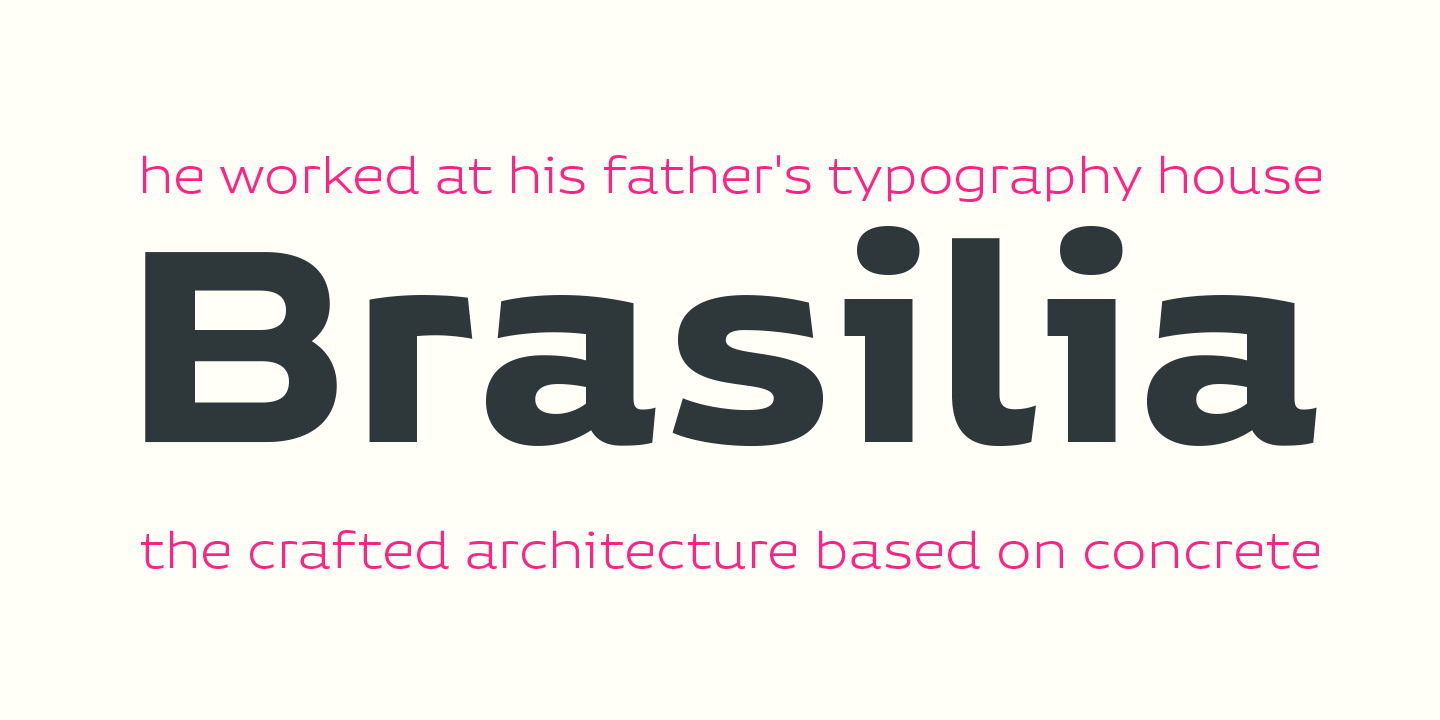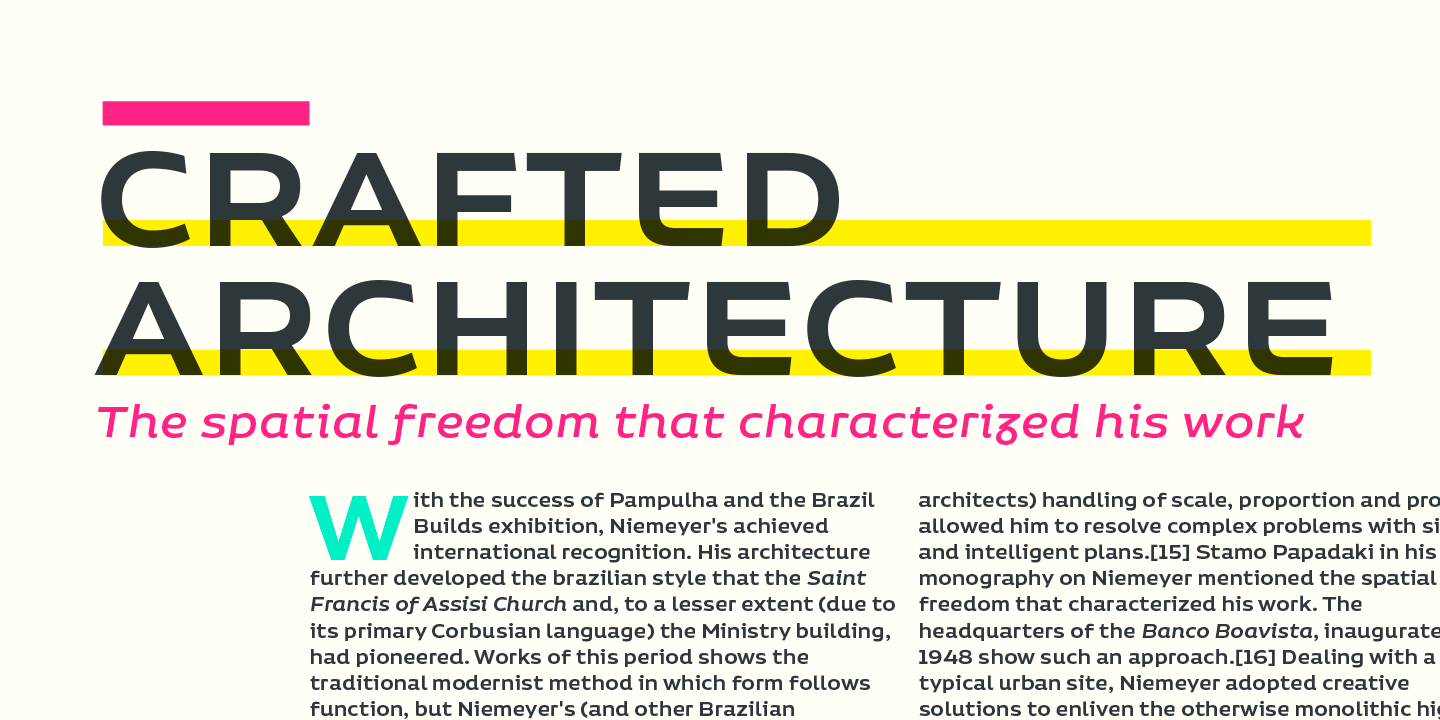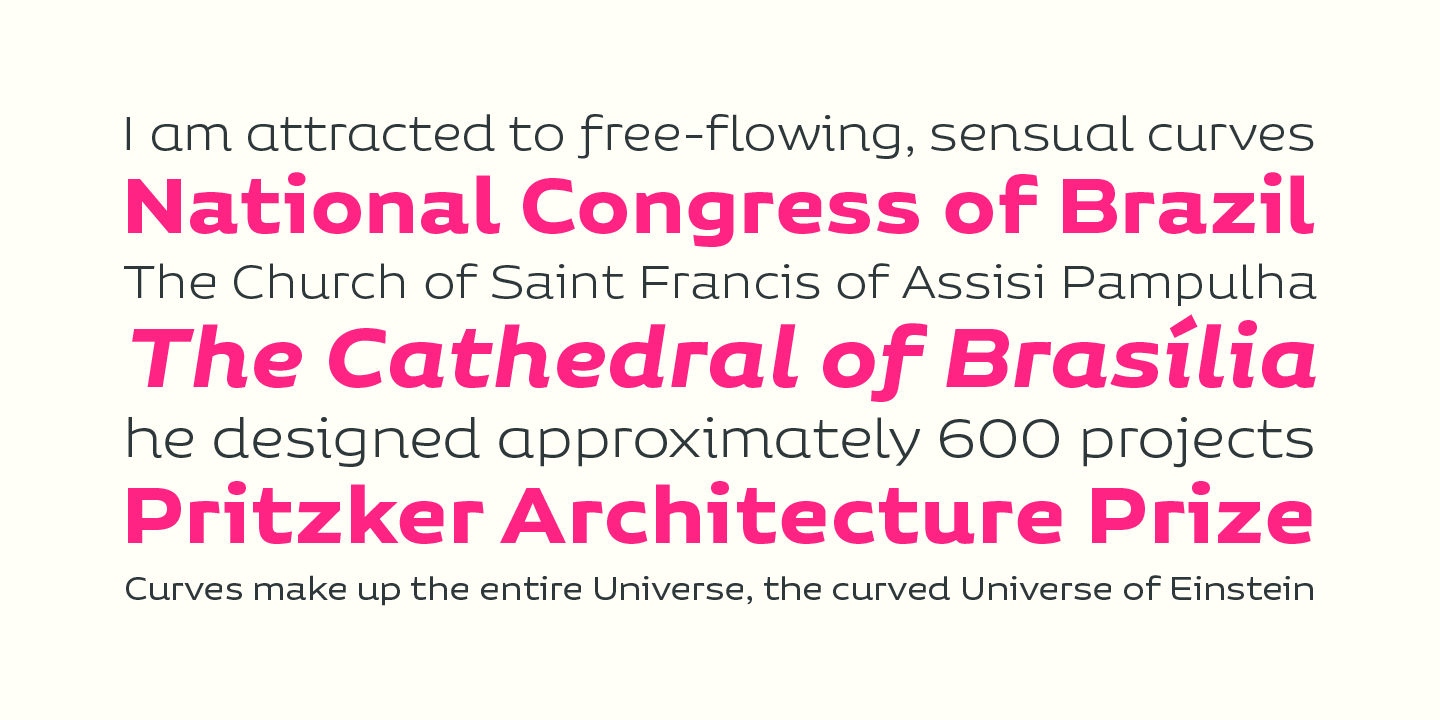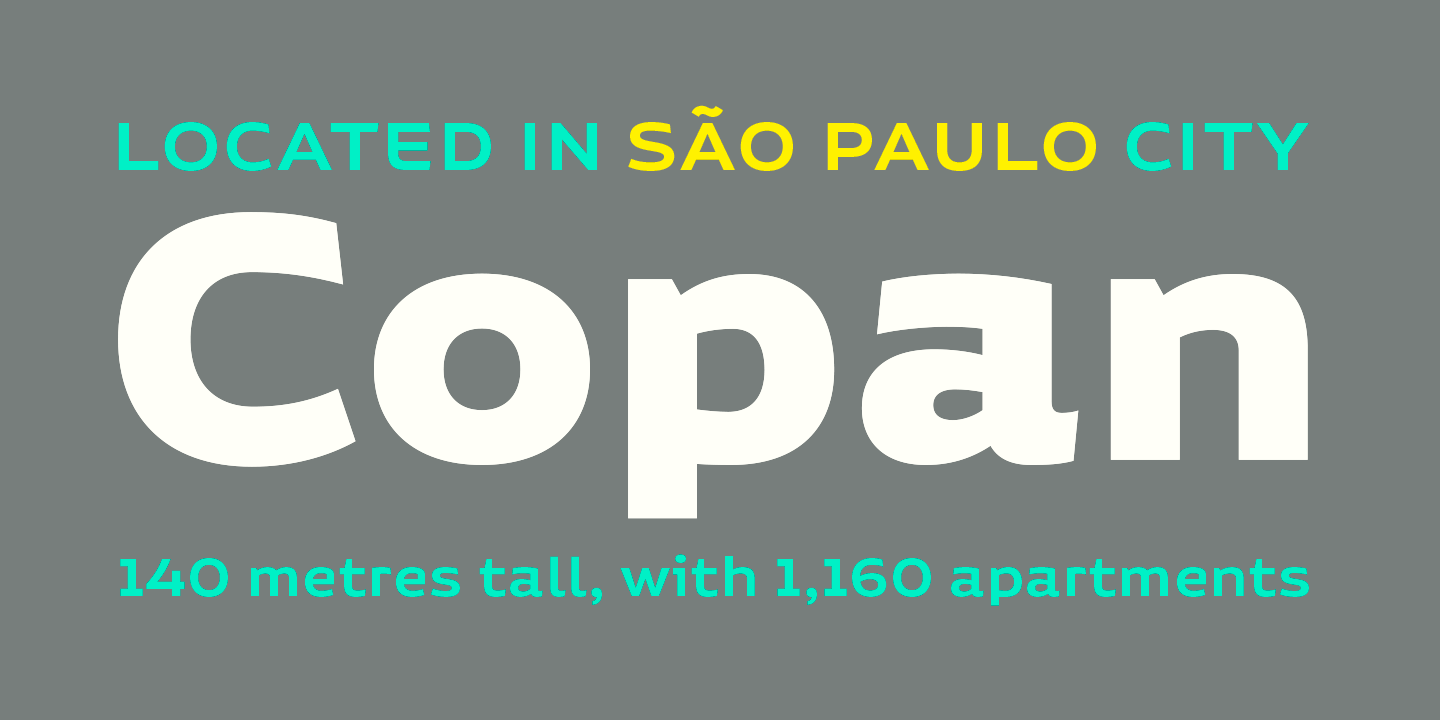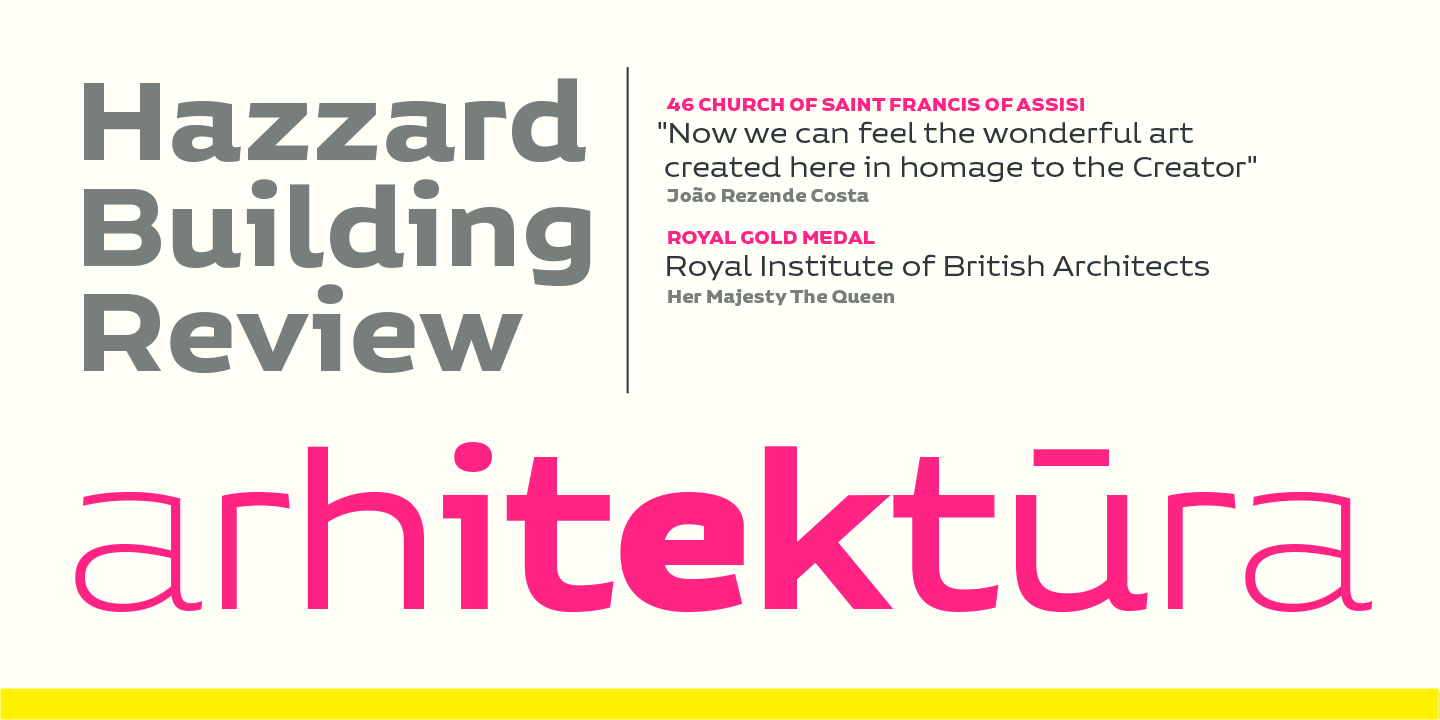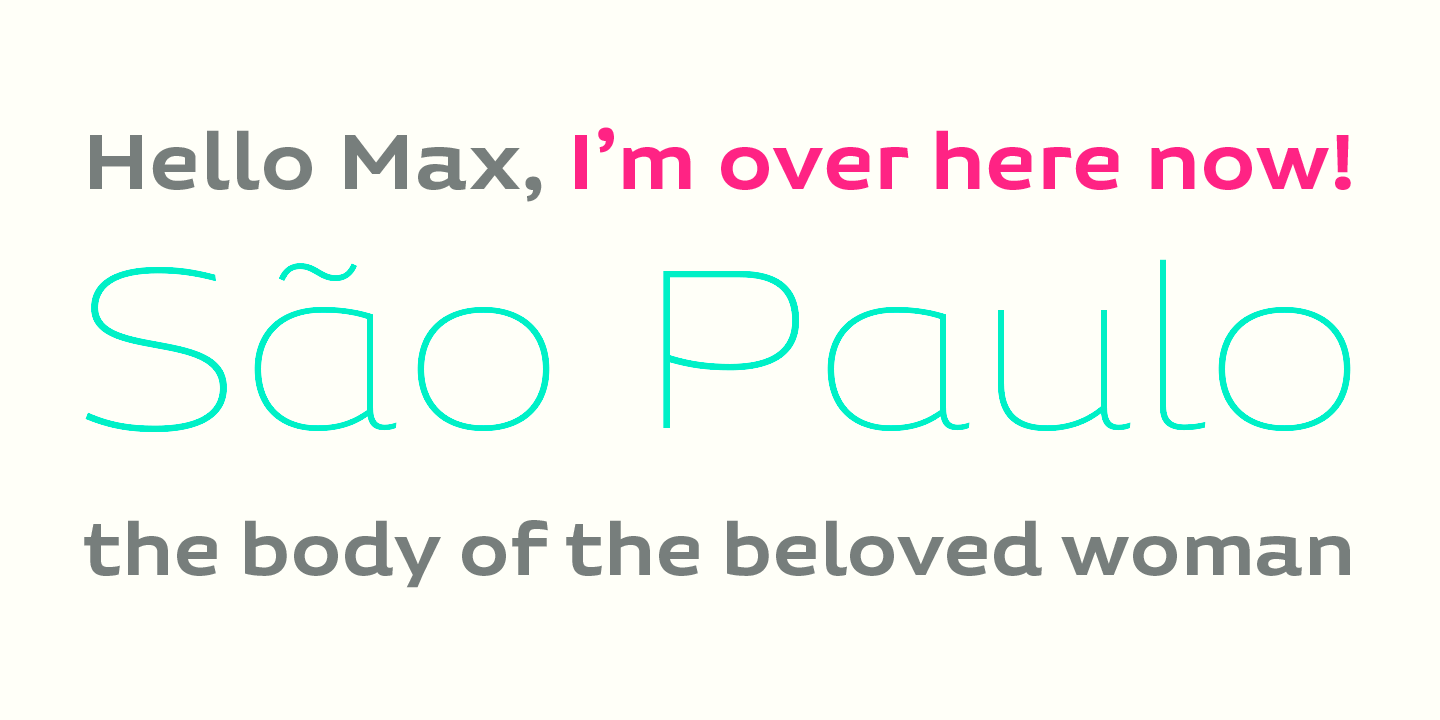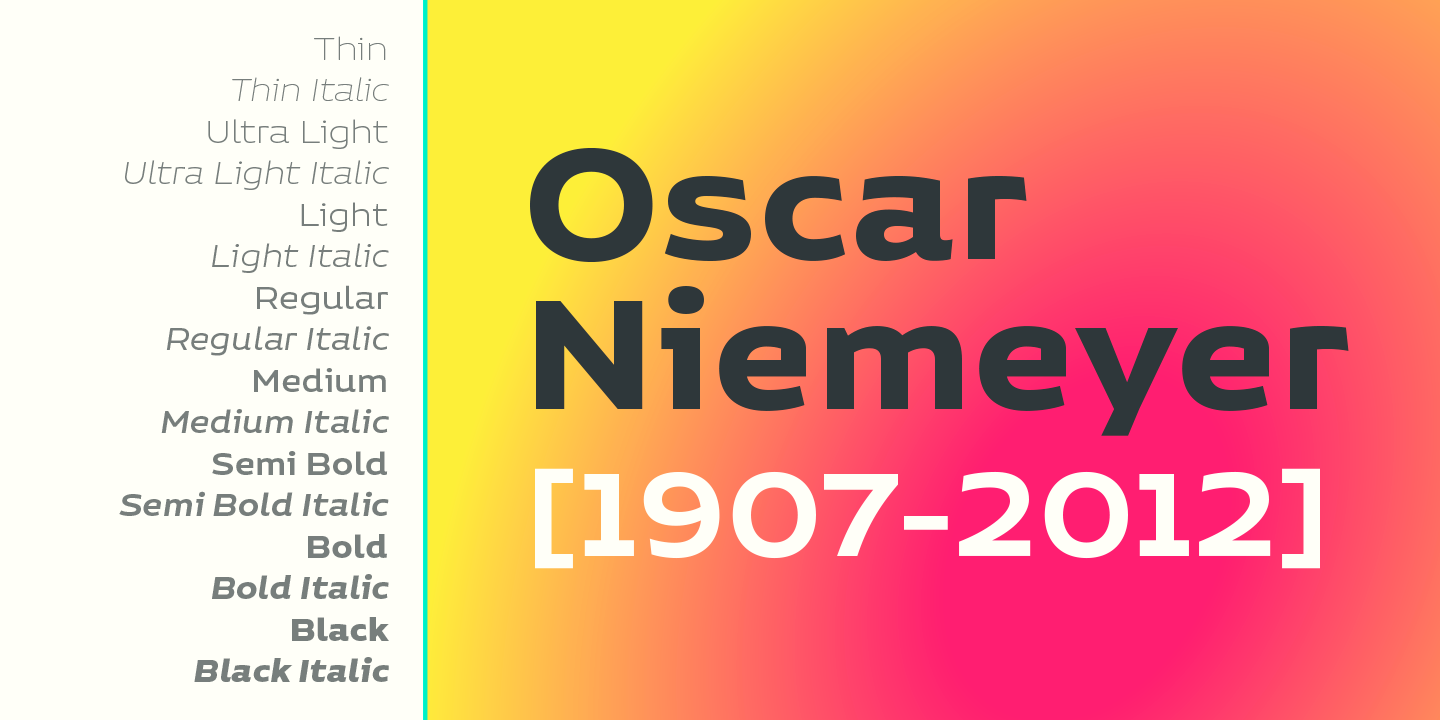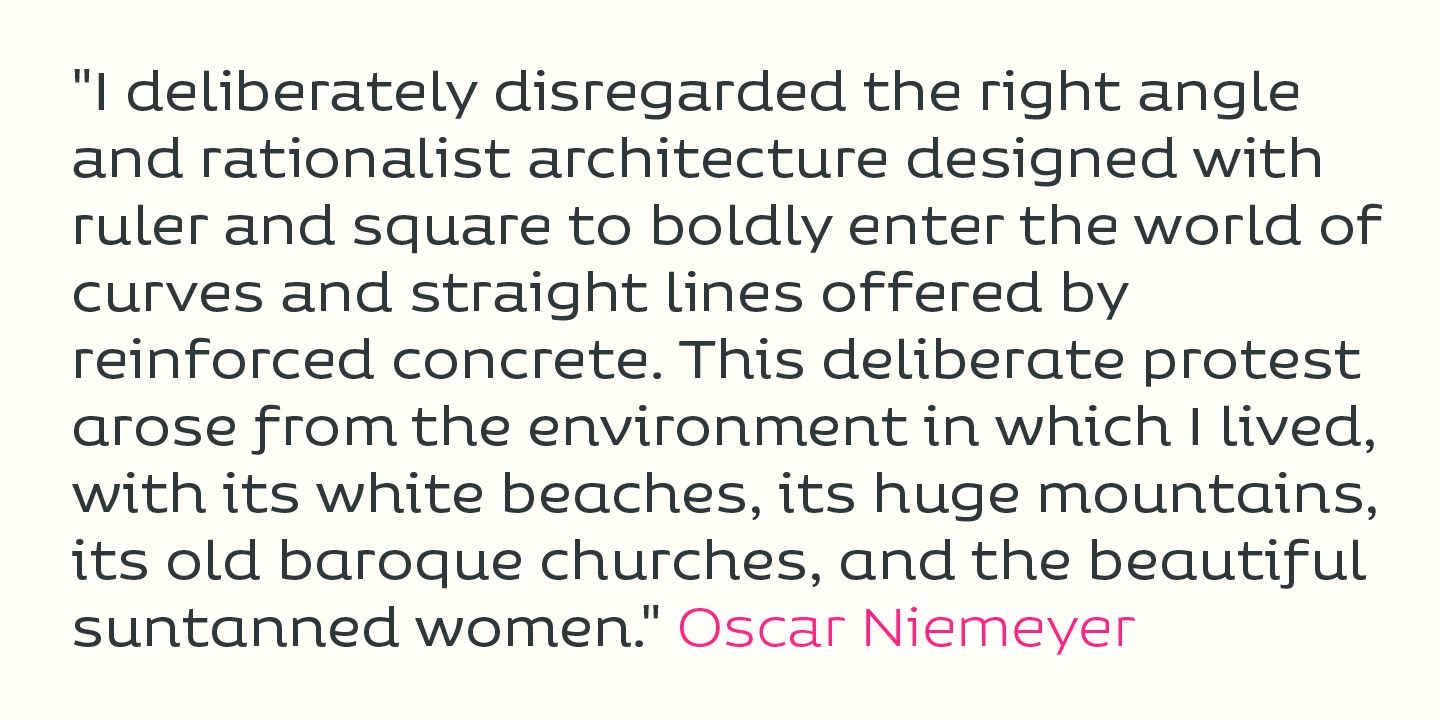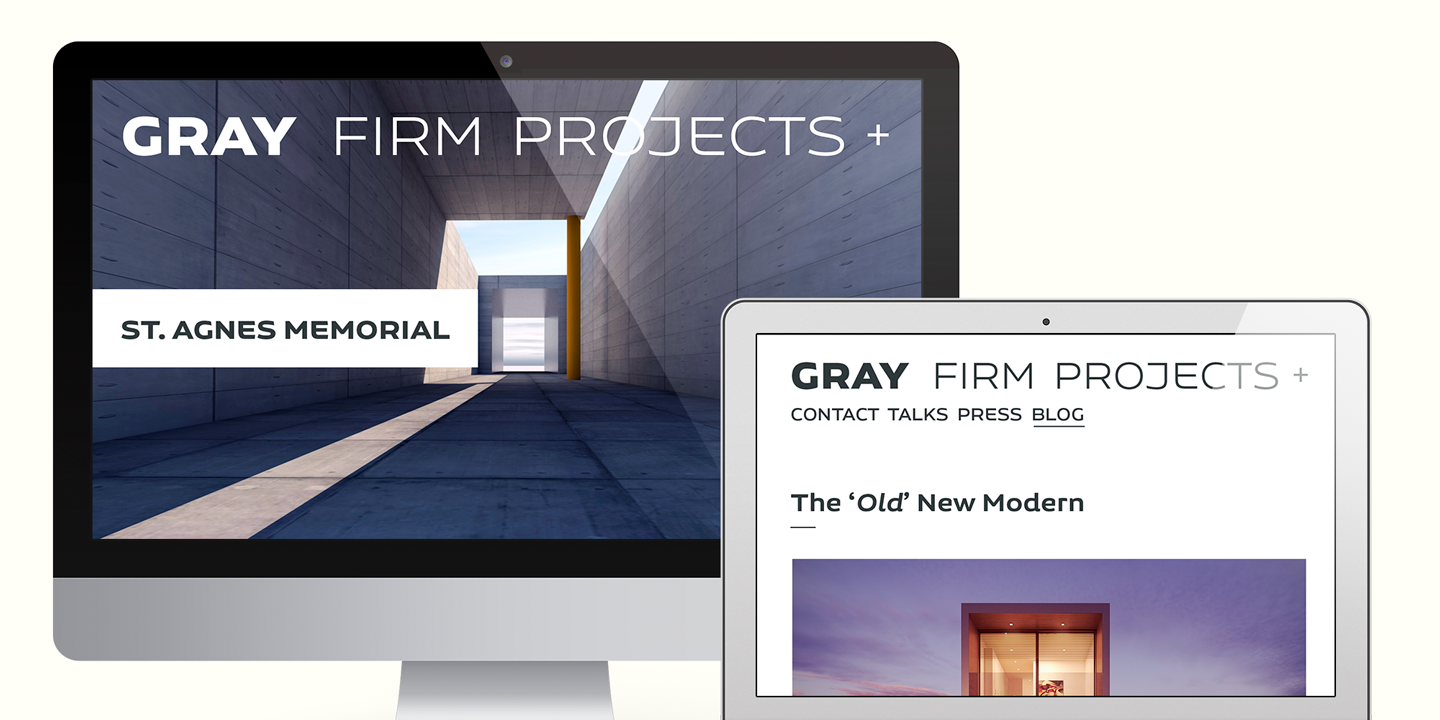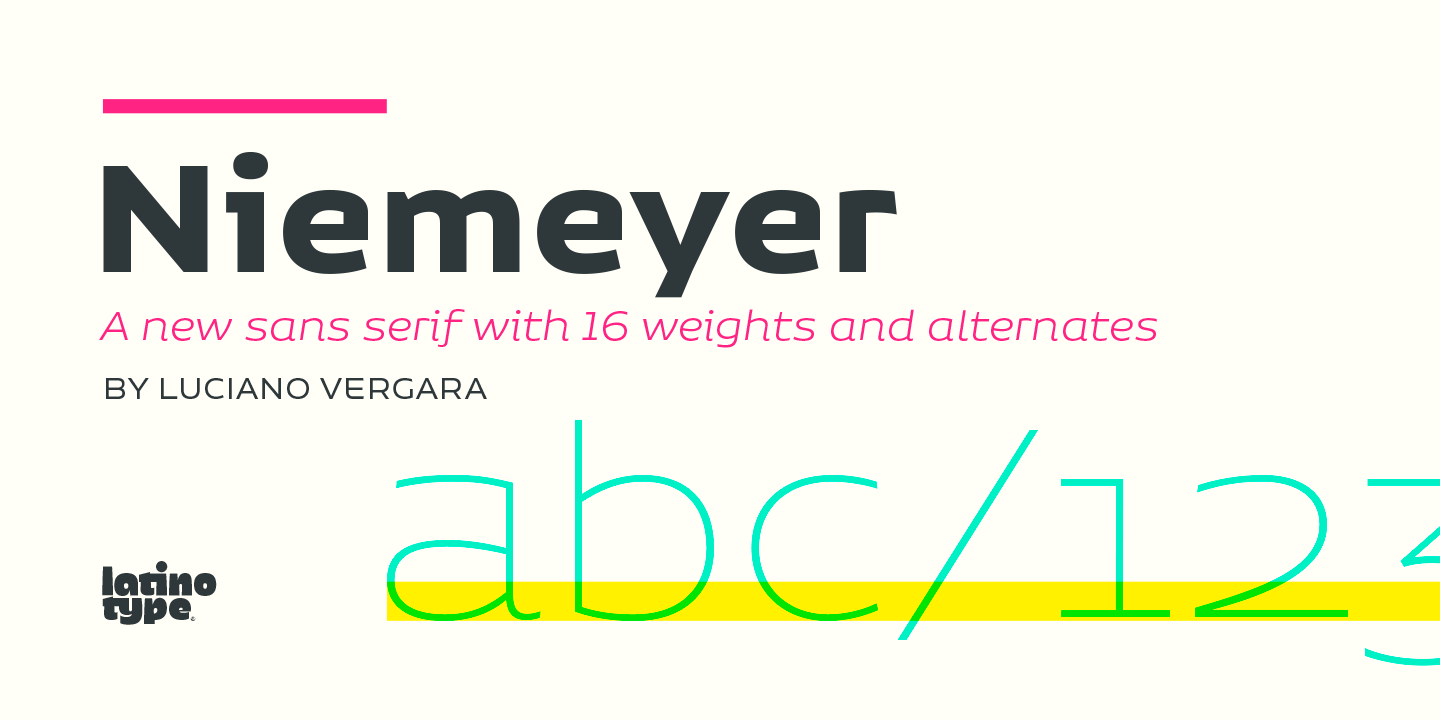
This typeface is my own tribute to Brazilian architect Oscar Niemeyer. The design process started when my wife and I visited Brazil while she was running a series of workshops on calligraphy. In my spare time, I would walk through the streets of beautiful cities like Rio de Janeiro or São Paulo, enjoying the local architecture and urban life. I had also the opportunity to attend to some of the workshops during which I was able to observe the organic of calligraphy and people. Then, I started to draw some shapes that reflected everything about this beautiful place: Niemeyer’s architecture and work and, in his own words ‘the curves on the body of the beloved woman’.
This versatile typefaces comes in 8 weights with matching italics, alternative characters, oldstyle figures and much more! Niemeyer is well-suited for logotypes, advertising, publishing, branding and corporate use.
Old-style Digits, Ligatures, Alternates